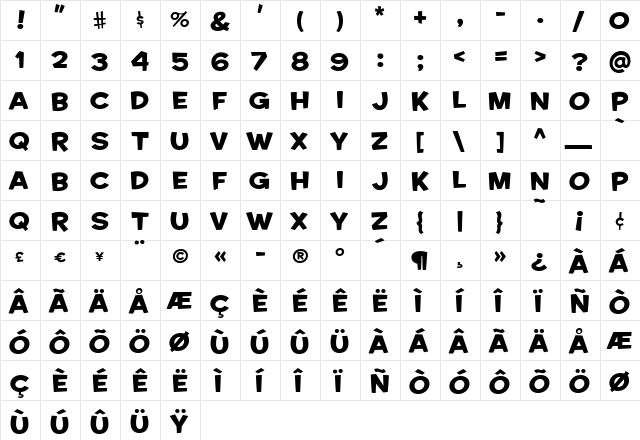
House-A-Rama Medium
Design Context for House-A-Rama Typeface
House-A-Rama offers clean, dependable letterforms without strong stylistic allegiance, making it a practical choice for designers who need flexibility.